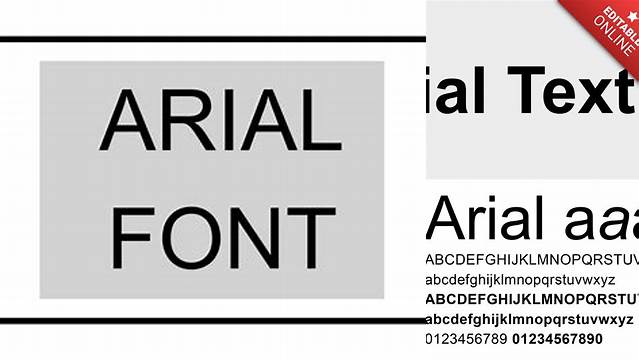
Arial Free Fonts Download: Your Ultimate Guide to Typography
Are you on the hunt for the perfect font to jazz up your projects? Looking to add a touch of professionalism to your documents? Or maybe you're just a font enthusiast like me, always on the lookout for cool typography? Well, guys, you've landed in the right place! Today, we're diving deep into the world of Arial free fonts download. This is your go-to guide, filled with everything you need to know about grabbing these fonts, using them, and making your work shine. Buckle up, because we're about to embark on a typographic adventure!
H2: Understanding Arial Font Family: Weights, Styles, and Variations
Okay, so you've found where to get your Arial free fonts download, but what's the deal with the Arial font family itself? It's not just one font; it's a whole family of fonts! You've got Arial Regular, Arial Bold, Arial Italic, Arial Bold Italic – the list goes on! Each weight and style serves a different purpose, so knowing the differences can really elevate your design game. Arial Regular is your workhorse. It's clean, clear, and super readable, making it perfect for body text. Then there's Arial Bold, which is great for headings and emphasizing important information. Need to add a little flair? Arial Italic is your go-to for emphasis or quotes. And of course, you can combine these styles to create dynamic typography. But it doesn't stop there. Arial also comes in condensed and narrow versions, which are great for fitting more text into a limited space. Understanding these variations allows you to create visual hierarchy and guide your reader's eye. Imagine using Arial Bold for your title, Arial Regular for your body text, and Arial Italic for a quote within the body. See how it all works together? Mastering the Arial family is like having a versatile toolkit at your disposal. You can create anything from simple documents to professional presentations with ease. Experiment with different combinations and see what works best for your project. Remember, the key is to maintain readability and visual harmony. The different weights and styles are there to enhance your message, not to distract from it. So, go ahead, explore the Arial family, and unlock its full potential.
H3: Arial Regular vs. Arial Bold: Choosing the Right Weight
When it comes to Arial free fonts download, one of the first decisions you'll face is choosing between Arial Regular and Arial Bold. These two are the most common weights, and knowing when to use each can make a huge difference in your design. Arial Regular is your go-to for body text. It's clean, easy to read, and doesn't draw too much attention to itself. It's like the supporting actor in a movie – essential, but not trying to steal the show. The key is readability, ensuring your audience can easily absorb the information. Using Arial Regular for long paragraphs of text helps maintain a comfortable reading experience. Arial Bold, on the other hand, is perfect for headings, titles, and emphasizing key points. It's bolder, stronger, and grabs the reader's attention. Think of it as the star of the show! It's designed to stand out and make a statement. Using Arial Bold sparingly, like for titles or important call-to-actions, creates visual hierarchy and guides the reader's eye. Now, the trick is to use them together. Arial Regular for the body, Arial Bold for the headings – that's a classic combination that works every time. It creates a clear distinction between different levels of information, making your document or design easier to understand. Avoid using too much Arial Bold, as it can become overwhelming and reduce readability. The goal is to create a balanced and visually appealing design. The choice between Regular and Bold depends on the context and the message you want to convey. By understanding the strengths of each, you can make informed decisions and create more effective designs. So, next time you're working on a project, take a moment to consider the weight and how it impacts your overall design.
H3: Arial Italic and Other Styles: Adding Emphasis and Flair
Beyond Arial Regular and Arial Bold, the Arial free fonts download family offers a range of styles to add emphasis and flair to your designs. Arial Italic is a classic choice for emphasizing specific words or phrases, providing a touch of elegance and sophistication. It's perfect for quotes, short pieces of text, or any instance where you want to subtly highlight certain information. Unlike Arial Bold, which grabs attention through its weight, Arial Italic achieves emphasis through its slanted appearance. This makes it a more subtle, yet effective, way to draw the reader's eye. In addition to Italic, Arial also comes in various condensed and narrow versions. These are perfect for situations where space is limited, such as in headlines or subheadings. Condensed fonts allow you to fit more text in a smaller area, without compromising readability. These styles are especially useful in print designs like brochures or posters, where space is often at a premium. Beyond these core styles, some Arial font packs might include other variations like Arial Black, which is a very bold and heavy weight, suitable for attention-grabbing headlines. However, always use these extra-bold styles with caution, as they can easily become overpowering if overused. The key to using Arial styles effectively lies in understanding their purpose and applying them strategically. Use Arial Italic to add a touch of sophistication, condensed versions to save space, and bold weights to make headlines. Always prioritize readability and ensure the styles you choose complement each other. Overusing multiple styles can make your design look cluttered and unprofessional. The goal is to create a visually appealing design that communicates your message clearly. Experiment with different combinations, see what works best for your project, and let your creativity flow.
H3: Arial Rounded: A Softer, More Approachable Alternative
While the standard Arial free fonts download offers a clean and professional look, sometimes you need something a little softer, a little more approachable. Enter Arial Rounded. This variation of Arial takes the same core structure but rounds off the corners, giving it a friendlier and more playful appearance. It's the perfect choice when you want to soften the overall tone of your design and create a more welcoming feeling. Unlike the sharp angles of the standard Arial, Arial Rounded has a more casual and informal vibe. It's often used in branding for children's products, educational materials, or any design where you want to convey a sense of friendliness and approachability. Think of it as the difference between a formal suit and a comfortable sweater. The rounded corners make the font easier on the eyes, which can be particularly helpful for large blocks of text or for audiences who might find sharp angles visually overwhelming. The rounded design makes it feel more inviting and less intimidating. When choosing between Arial and Arial Rounded, consider the overall message and target audience of your project. If you want to project a professional, formal image, the standard Arial might be the better choice. But if you're aiming for a more friendly, approachable feel, Arial Rounded is a great option. It's also worth noting that Arial Rounded can be a good choice for user interfaces or mobile apps, where readability and user experience are paramount. The softer curves can make the text more comfortable to read on screens. When using Arial Rounded, it's best to pair it with other design elements that share a similar aesthetic. This could include softer colors, rounded shapes, and illustrations with a friendly tone. The key is to create a cohesive design that reinforces the overall message. So, next time you're working on a project and want to add a touch of warmth and friendliness, consider the Arial Rounded font. It might just be the perfect fit for your needs.
H2: Arial vs. Helvetica: A Classic Font Face Showdown
Alright, let's talk about a bit of font history, shall we? When you're looking for an Arial free fonts download, you're often faced with a choice: Arial or Helvetica. These two sans-serif fonts are practically twins, but with a few key differences. Both are incredibly versatile, widely used, and generally considered safe choices for any design project. But which one is better? It depends on what you're going for! Arial was created as a direct response to Helvetica, and the intention was to make a similar font. They share many of the same characteristics: clean lines, excellent readability, and a neutral appearance. This makes both of them suitable for everything from body text to headlines. However, there are subtle differences that font aficionados can spot a mile away. Helvetica tends to be slightly more condensed and has a more precise, geometric design. Arial, on the other hand, is often perceived as being a bit softer and more rounded. One of the main differences lies in the letter shapes. Look closely at the 'G', 'R', and 'a'. You'll notice the curves and strokes have distinct differences. In terms of availability, both fonts are widely available. Arial comes pre-installed on most Windows computers, while Helvetica is standard on macOS. Both can be downloaded as free fonts from various sources, but always double-check the licensing. So, which should you choose? If you want a clean, classic look and need to ensure your font works across different platforms, you can't go wrong with either. Helvetica might offer a slightly more refined aesthetic, while Arial provides a reliable, versatile option that works in almost any situation. It often comes down to personal preference. Experiment with both fonts, try them in different contexts, and see which one best suits your project. The goal is to choose the font that best communicates your message. Remember, the subtle differences between these fonts can have a big impact on the overall feel of your design. So, take your time, compare them closely, and choose the one that feels right.
H3: Understanding the Differences: Arial's Subtle Distinctions
While Arial and Helvetica may seem almost identical at first glance when you seek an Arial free fonts download, there are subtle distinctions that set them apart. These differences, though minor, can significantly affect the overall aesthetic and feel of your design. Let's dive deeper into what makes Arial unique compared to its more famous counterpart, Helvetica. One of the most noticeable differences lies in the letter shapes. Arial often has a slightly wider appearance, with letterforms that are a bit more open. This is particularly evident in letters like 'a', 'g', and 'R'. The curves are slightly less precise in Arial, creating a softer feel. Helvetica, on the other hand, has a more geometric structure and a more uniform appearance. Another key difference is the weight of the strokes. Arial's strokes can be a little heavier, which can make it appear bolder, even in the regular weight. This can affect readability at smaller sizes. Another factor to consider is the weight of the font itself. While both fonts come in a variety of weights, the weights of Arial may not align perfectly with those of Helvetica. This can cause variations in perceived boldness between the two fonts. This difference can lead to some interesting effects when setting them side by side. For example, when you place an Arial font next to Helvetica, and they have the same weight settings, you may notice the Arial font appears slightly heavier. These are the details that designers and typographers notice, and consider when choosing between the two. Beyond the letter shapes and stroke weights, Arial is often seen as more economical, meaning it can be easier to license and use without the restrictions that sometimes come with Helvetica. This can be an important factor, particularly for commercial projects. Arial has become a reliable option because of its versatility and ease of use. It's a good choice if you need a font that will work across different platforms. So, when deciding between Arial and Helvetica, keep these subtle distinctions in mind. The best way to appreciate the differences is to compare them side-by-side, experimenting with different weights and sizes. By understanding these nuances, you'll be able to make informed decisions and create designs that look and feel just right.
H3: Helvetica vs. Arial: Which Font Is Right for Your Project?
So, you're wrestling with the age-old question when considering an Arial free fonts download: Arial or Helvetica? Both fonts are excellent, but which one is the better fit for your project depends on the specific needs and goals. Let's break it down. If you're looking for a clean, modern look, both fonts can deliver. However, if you want a more precise, geometric feel, Helvetica might be the better choice. It has a more uniform appearance that can convey a sense of professionalism and sophistication. Helvetica is often preferred in corporate branding, technical documents, and anywhere where a clean and consistent look is essential. Arial, on the other hand, is slightly softer, and the curves are a little more open, giving it a friendlier, less rigid feel. This makes Arial a good choice for projects that need to feel more approachable, such as educational materials, marketing materials, or any design that aims to connect with a wider audience. Regarding readability, both fonts are highly legible, but certain factors can influence your decision. Helvetica's consistent weight and geometric construction can make it easier to read at smaller sizes, while Arial's slightly wider forms may be easier on the eyes for some people. Keep in mind the context in which the font will be used. If you're designing for print, both fonts will work well. However, if you're designing for the web, the subtle differences in the font's rendering on different devices can become more apparent. Test both fonts on the target devices to ensure optimal readability. When it comes to availability, both fonts are widely accessible. Arial comes pre-installed on most Windows computers, while Helvetica is standard on macOS. However, different versions of the fonts may have slightly different licensing terms. Always double-check the license before downloading and using a font for commercial purposes. The final decision depends on your specific goals. Consider the overall tone of your project, your target audience, and the desired aesthetic. Experiment with both fonts, compare them side by side, and see which one best conveys your message. There's no single right answer, so trust your gut and choose the font that feels right.